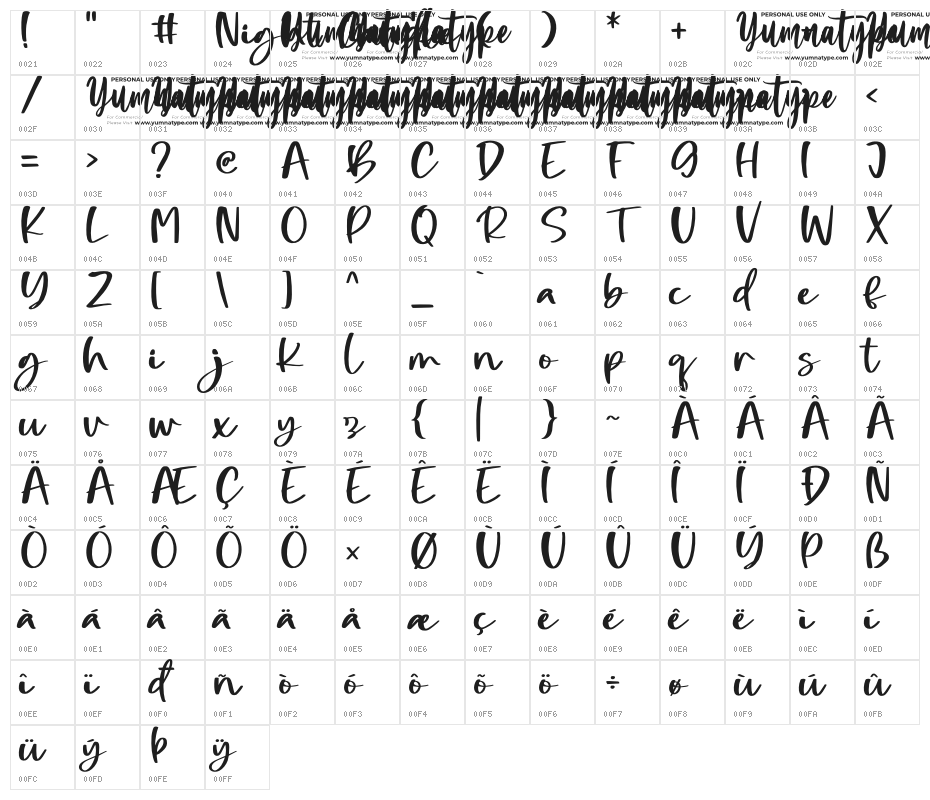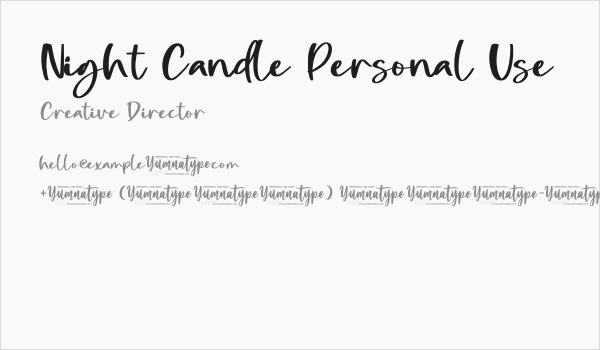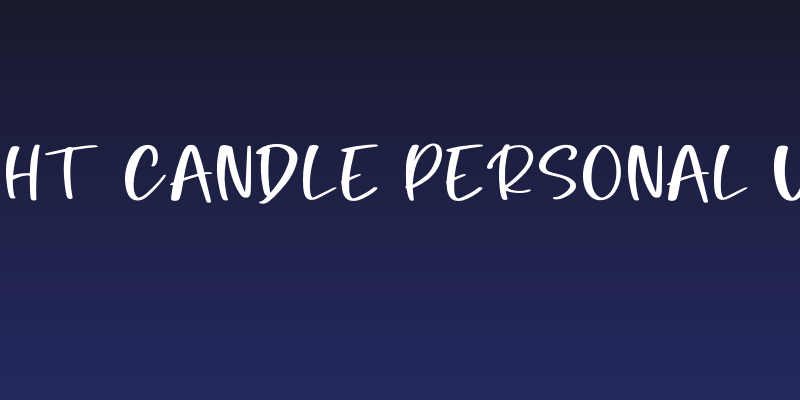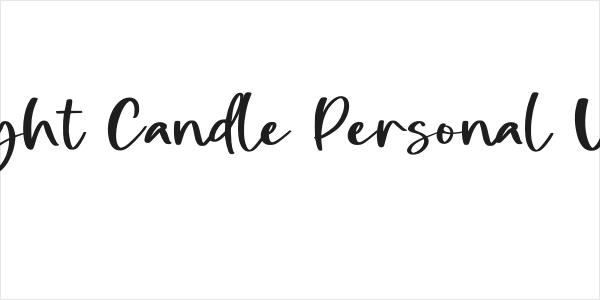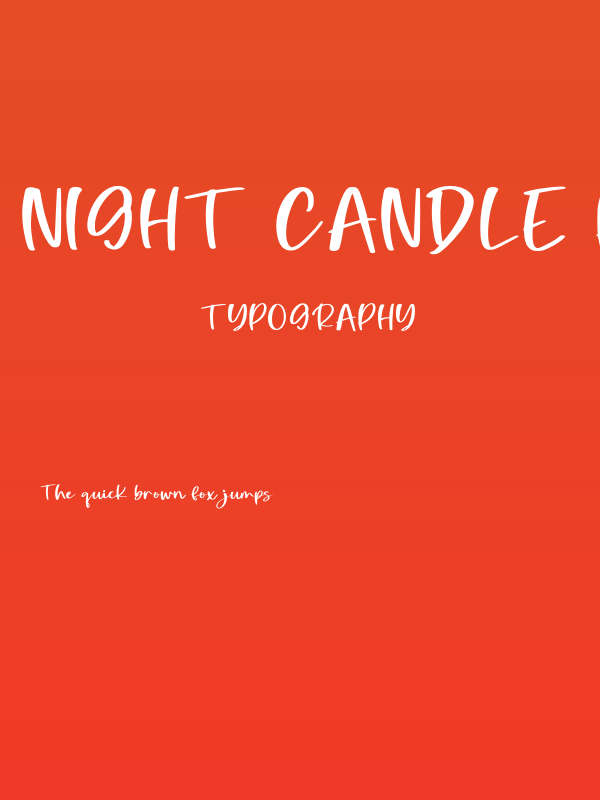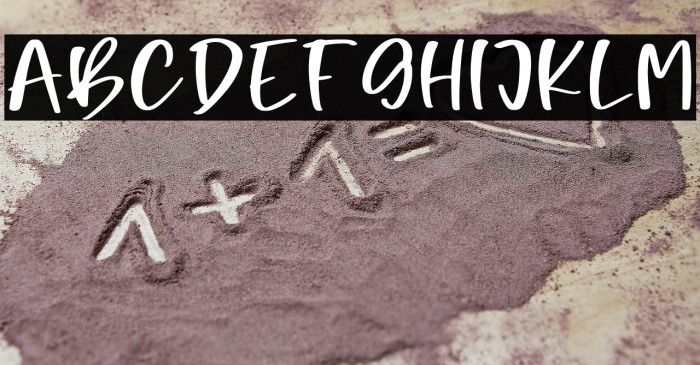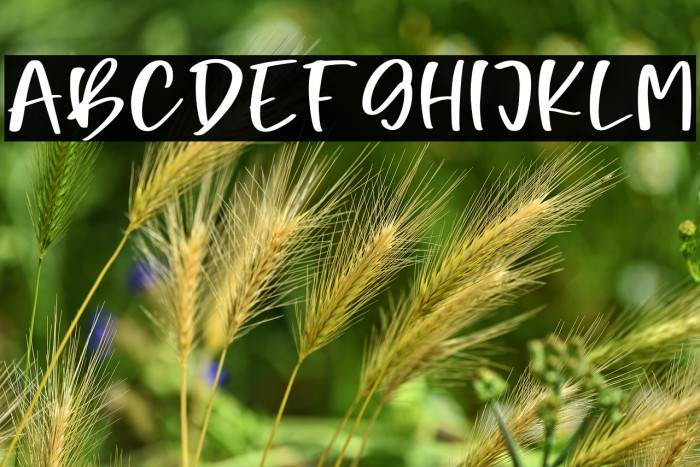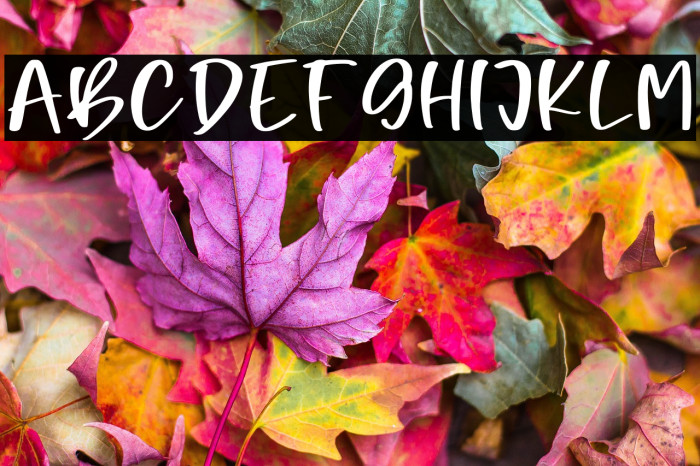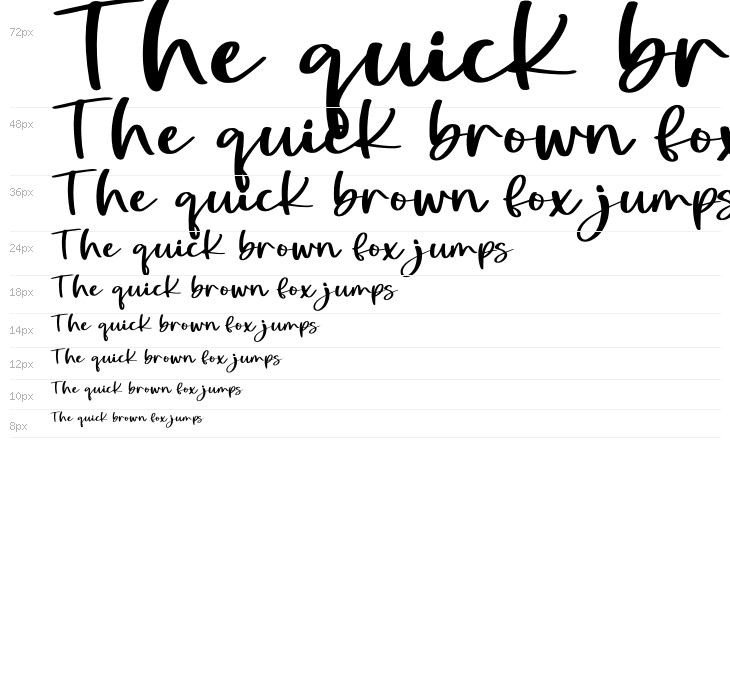
Night Candle Personal Use Font
Night Candle Personal Use Description
This font features a flowing, handwritten style with a modern touch. The uppercase letters are bold and expressive, while the lowercase letters maintain a consistent fluidity, creating a harmonious balance. The strokes vary in thickness, adding a dynamic and lively feel to the text. The characters are slightly slanted, enhancing the script-like appearance. The font includes a full set of uppercase and lowercase letters, numbers, and a selection of special characters, making it versatile for various design needs.